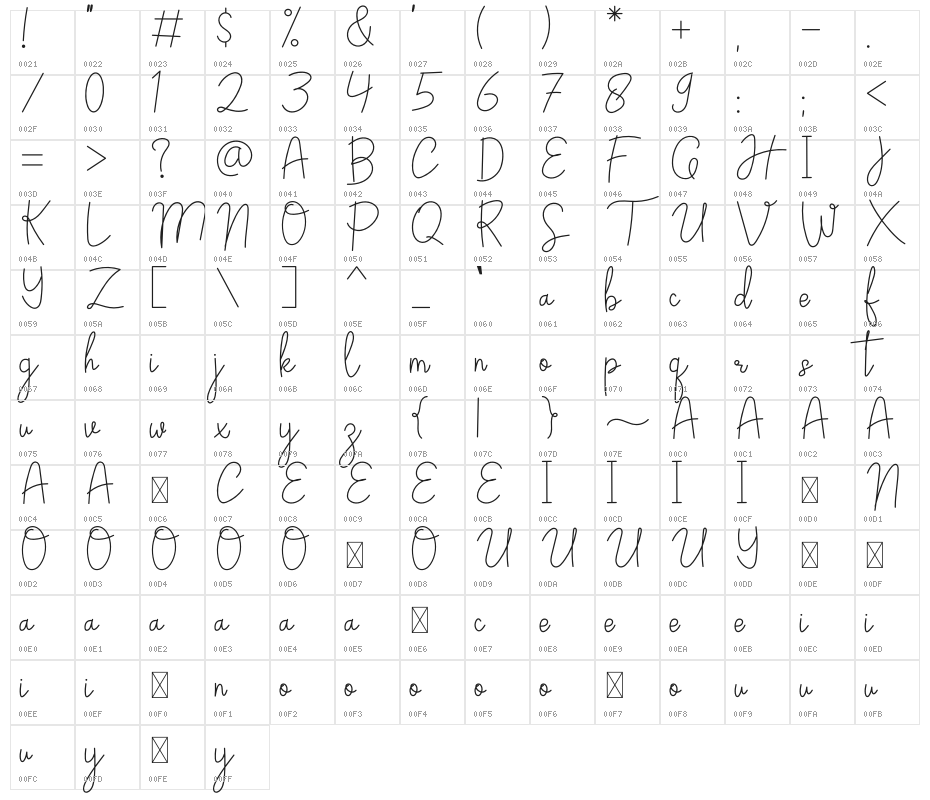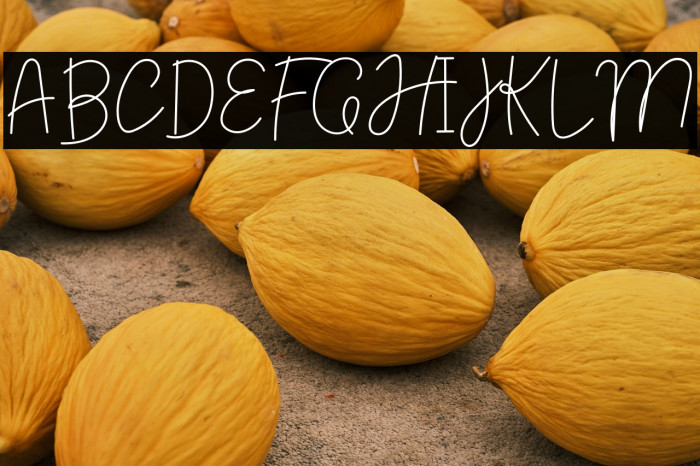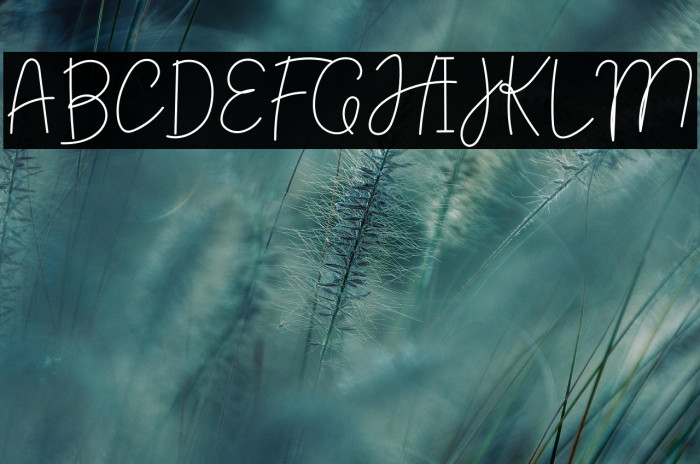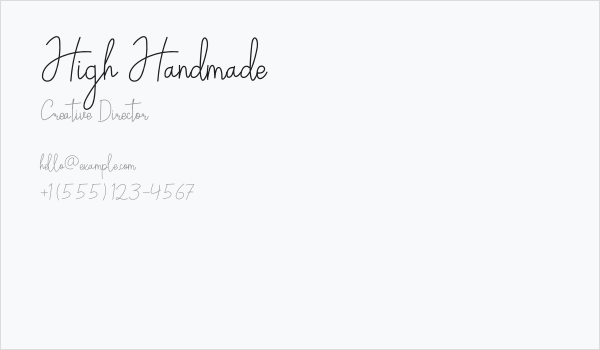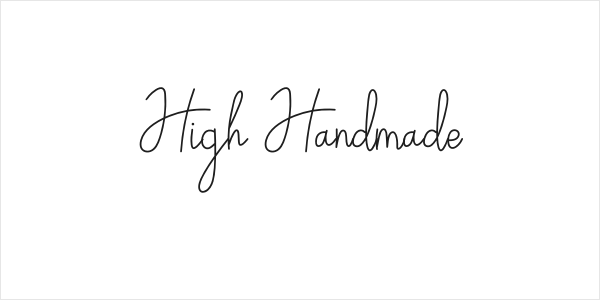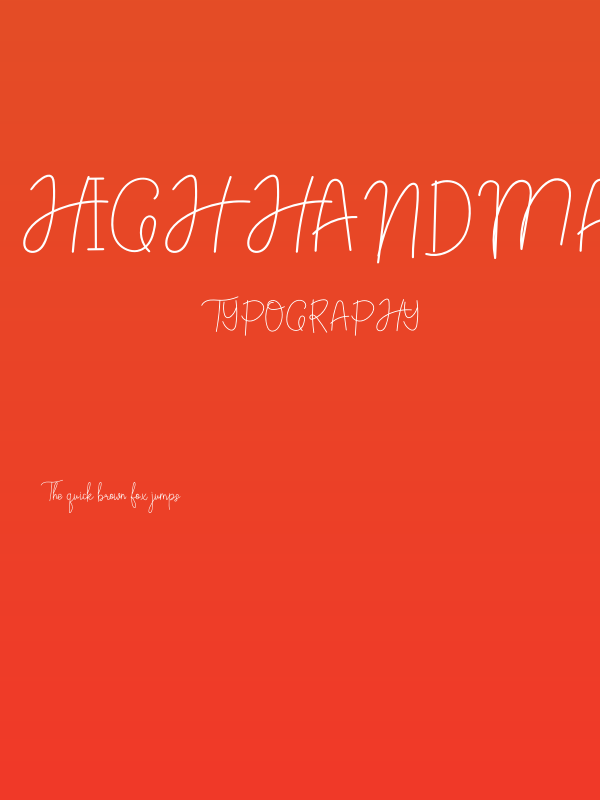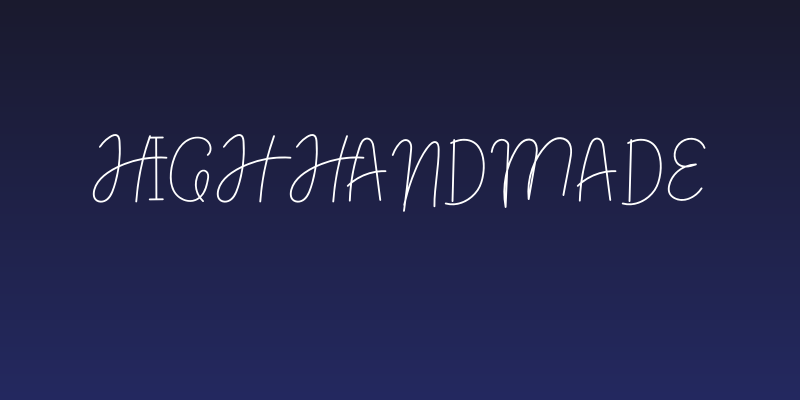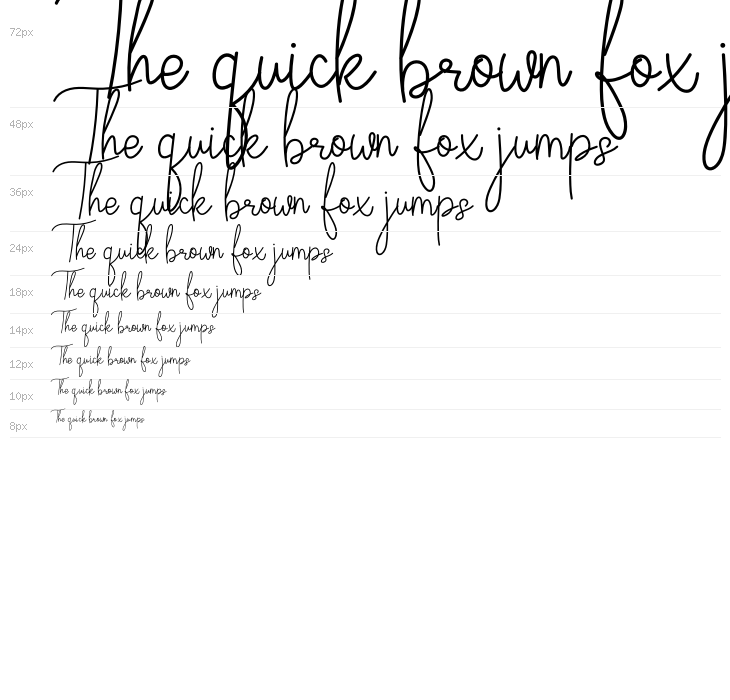
High Handmade Font
High Handmade Description
A playful, handwritten script with tall, narrow letterforms and irregular, organic strokes. The lines are thin and fluid, giving a casual and personal feel. Uppercase and lowercase letters are distinct, with exaggerated ascenders and descenders, and the numerals and punctuation maintain the same whimsical style.
| Overall Style | Decorative, Playful, Casual |
| Use Case | Headlines, Short quotes, Informal notes, Creative projects |
| Proposed Projects | Greeting cards, invitations, personal branding, social media graphics, children's book titles. |